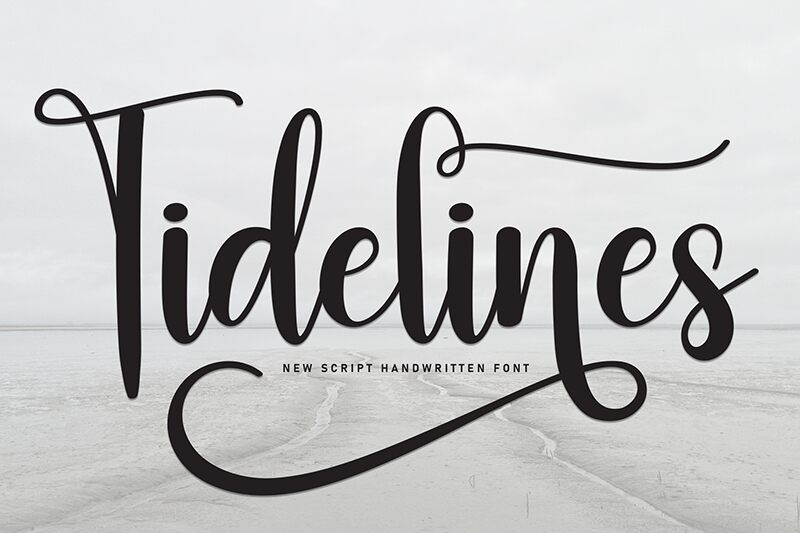
Tidelines
Tidelines font is a free calligraphy font by Scratchones that brings sophistication and elegance to all contemporary applications. Its italic style captures attention with its flowing lines and curves creating visual harmony.
Fashion branding, luxury publications, magazines, photo books, typography signs, logotypes, letterheads and business cards are just some of the uses where sophistication and creativity find a place.